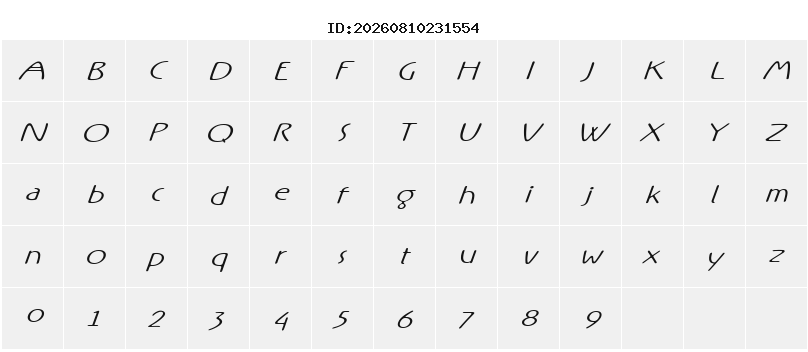
Rx-OneOne Preview
• Font Name: Rx-OneOne
• Designer: Apostrophe (')
About Rx-OneOne.ttf
Rx-OneOne.ttf is a modern, elegant sans-serif font designed for ultimate readability and visual harmony. Perfect for branding, headlines, web design, and print materials.